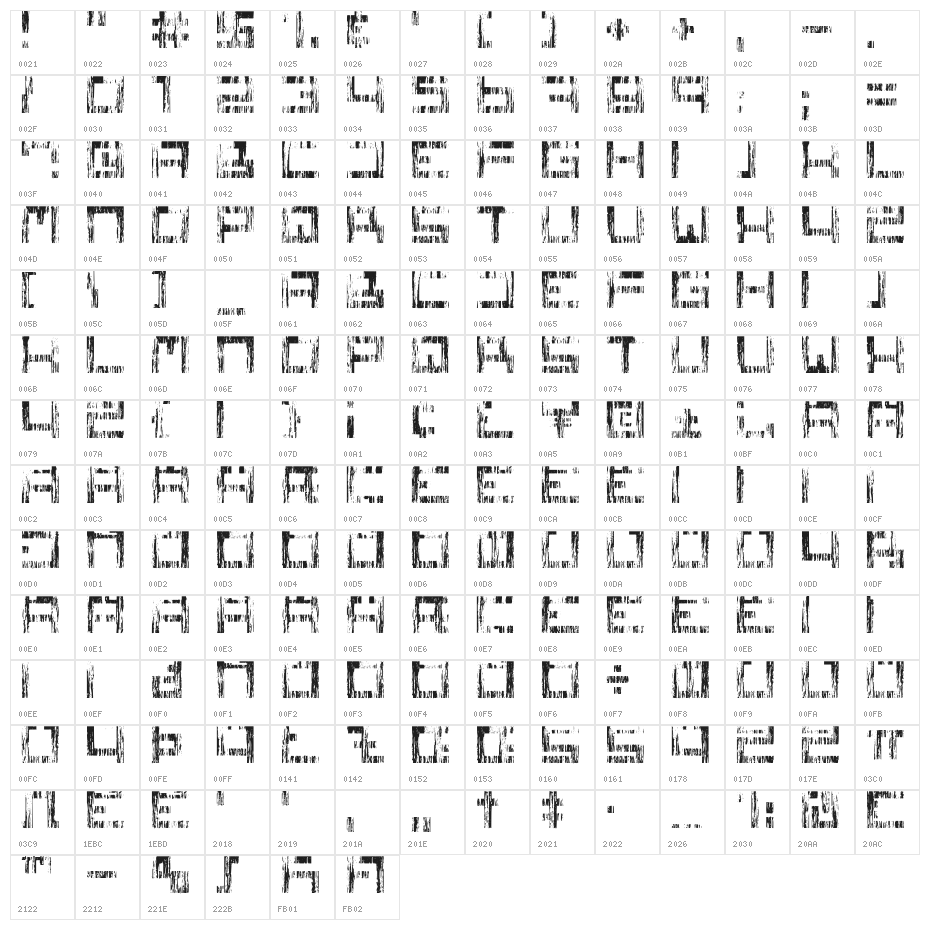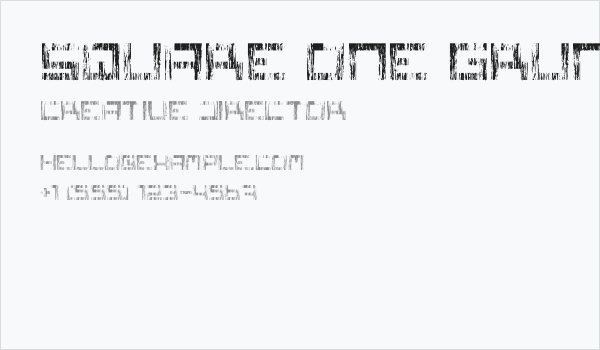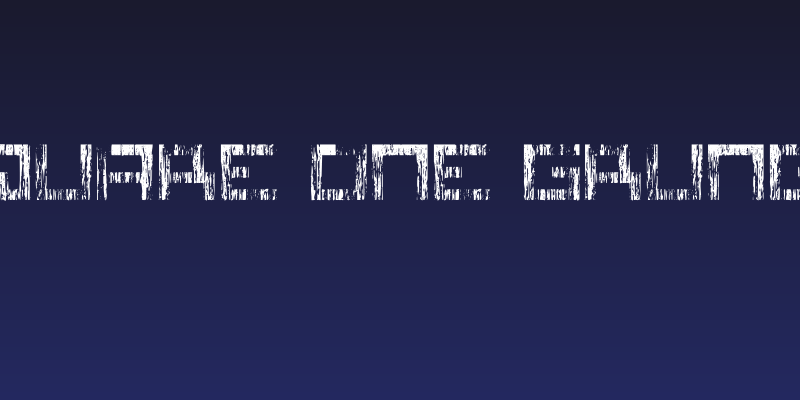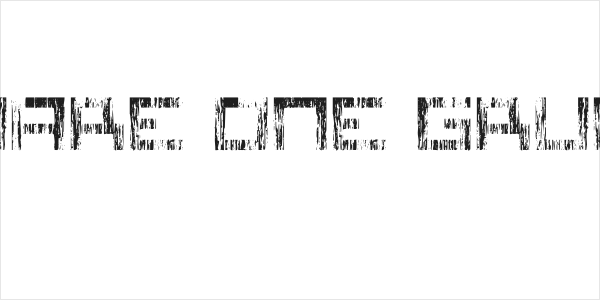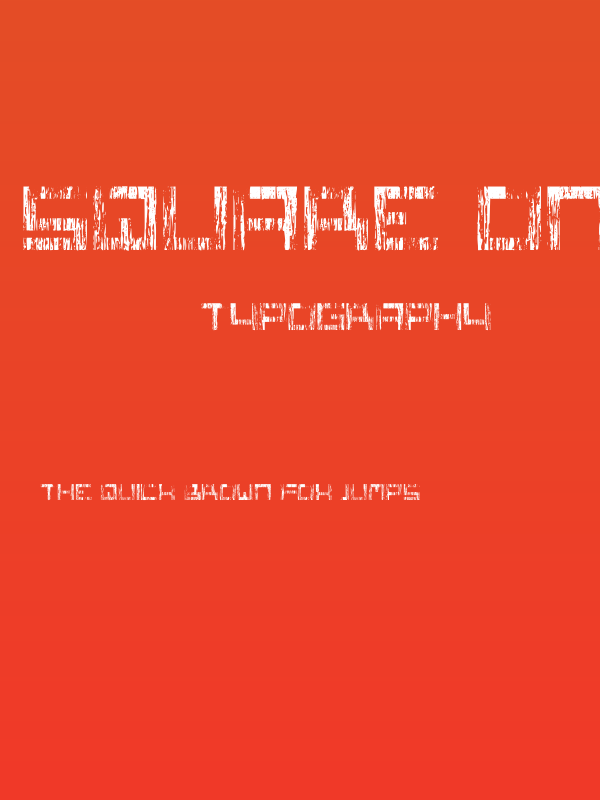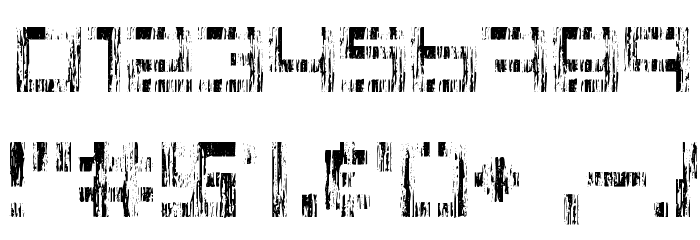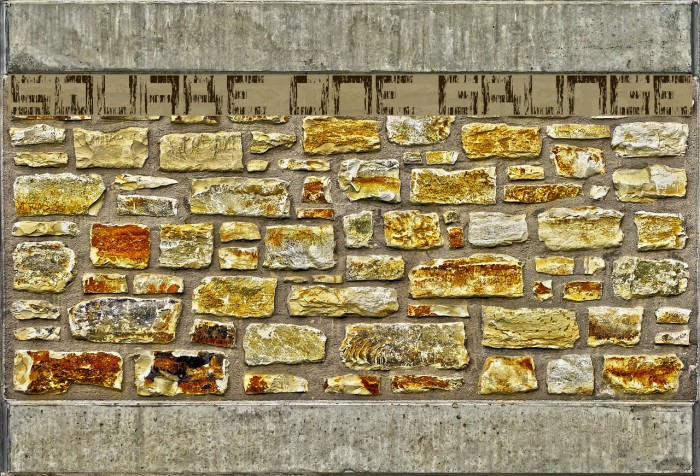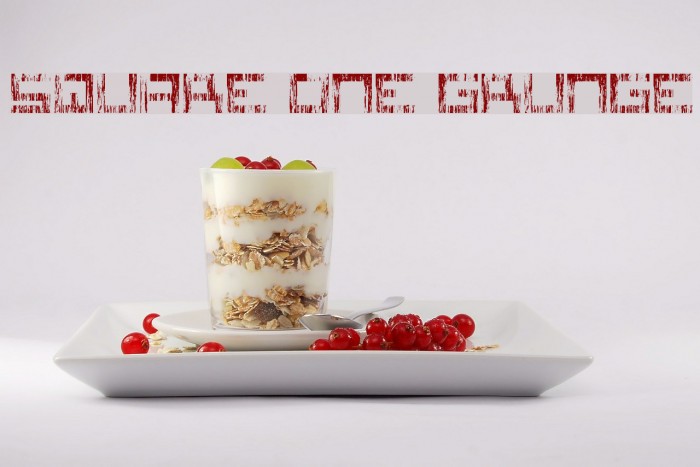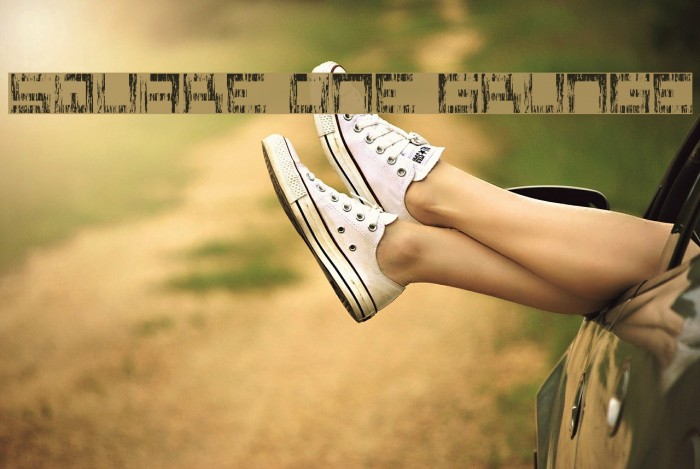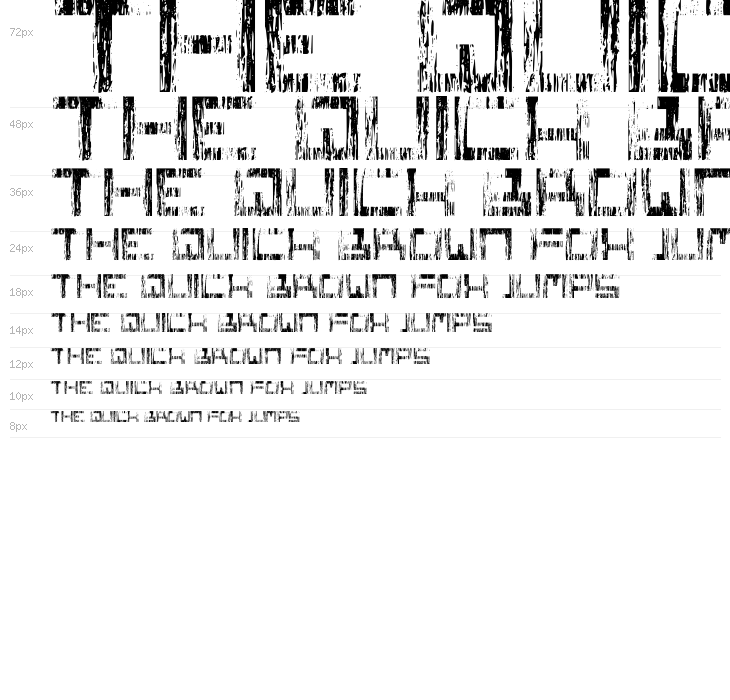
Square One Grunge Font
Square One Grunge Description
This font features a distressed, grunge aesthetic with a blocky, geometric structure. Each character is designed with a rough, textured appearance, giving it a worn and edgy look. The uppercase and lowercase letters maintain a consistent height, contributing to a uniform appearance despite the chaotic texture. The numbers and special characters follow the same design principles, ensuring a cohesive style throughout. This font's unique style makes it stand out, perfect for projects that require a bold and unconventional look.
| Overall Style | Grunge, Urban, Edgy |
| Proposed Projects | Ideal for album covers, posters, urban-themed designs, and any project needing a gritty, edgy vibe. |